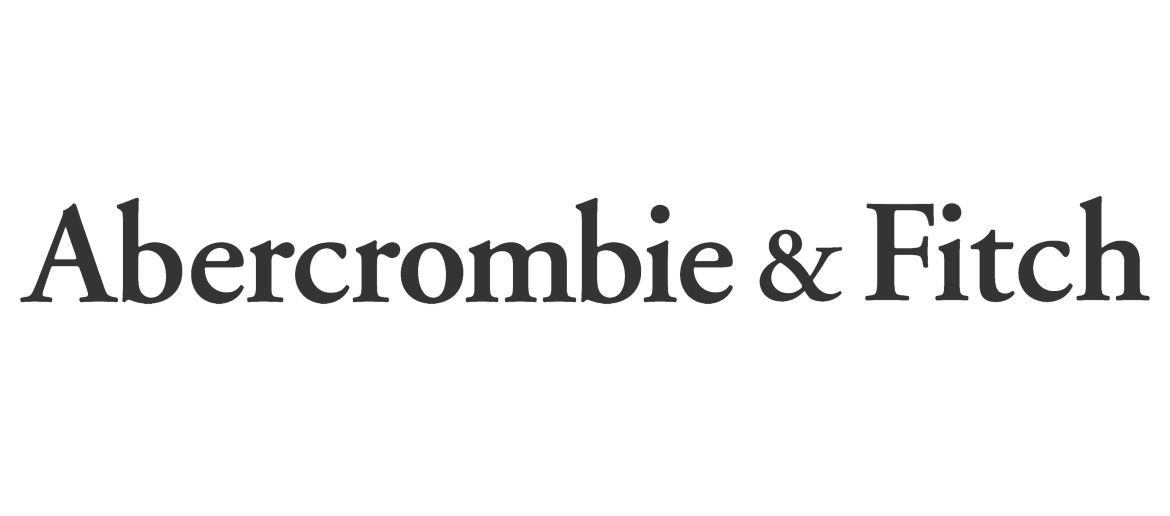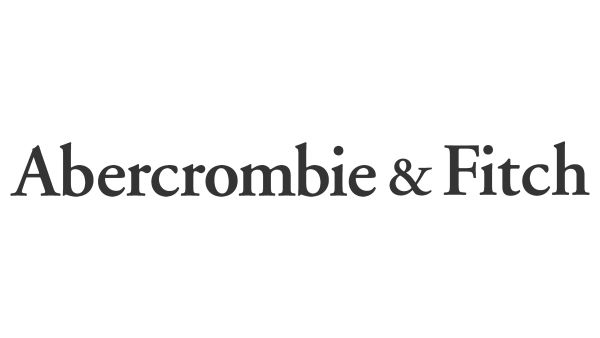
Abercrombie & Fitch Font
What Font is Abercrombie & Fitch?
Abercrombie & Fitch font uses Adobe Garamond Bold, a premium font featuring elegant serif letterforms with timeless sophistication that evokes Ivy League heritage and East Coast preppy culture. While Adobe Garamond Bold is premium, we’ve found a free alternative that captures its refined aesthetic. The font’s classical, literary design perfectly embodies Abercrombie & Fitch’s identity as an aspirational American lifestyle brand, reflecting collegiate tradition, casual luxury, and the brand’s transformation from outdoor outfitter to youth fashion icon.